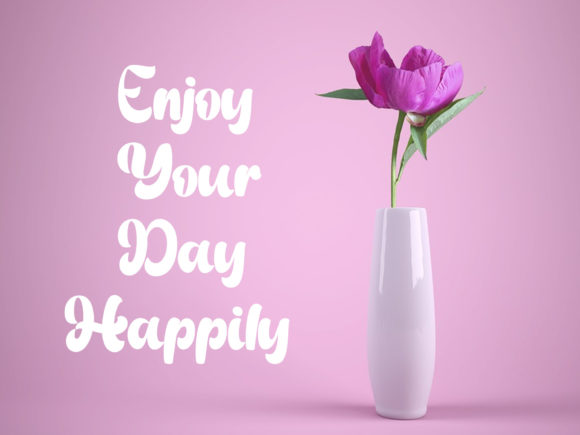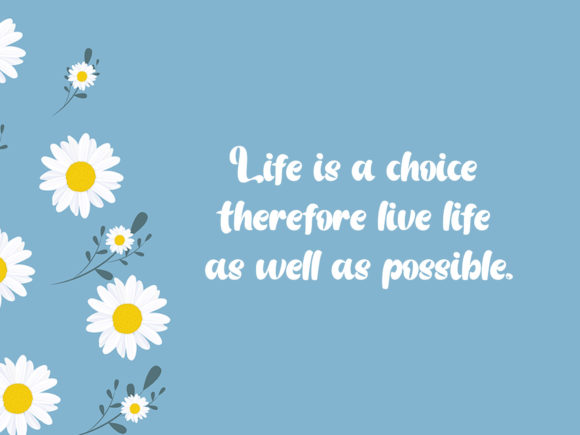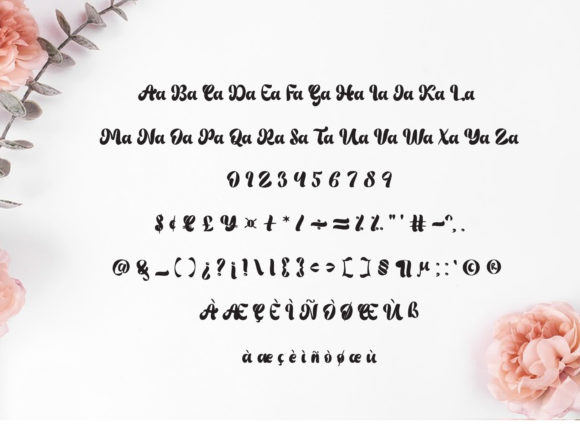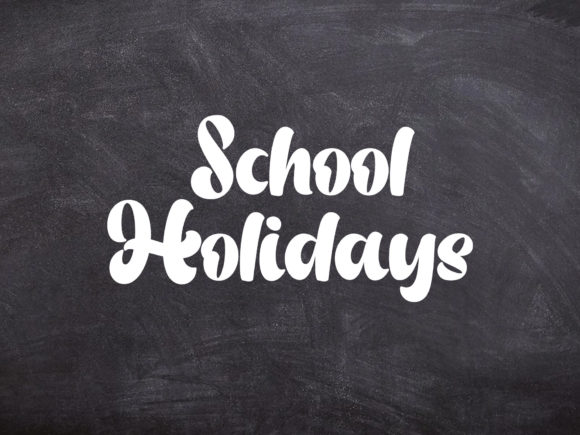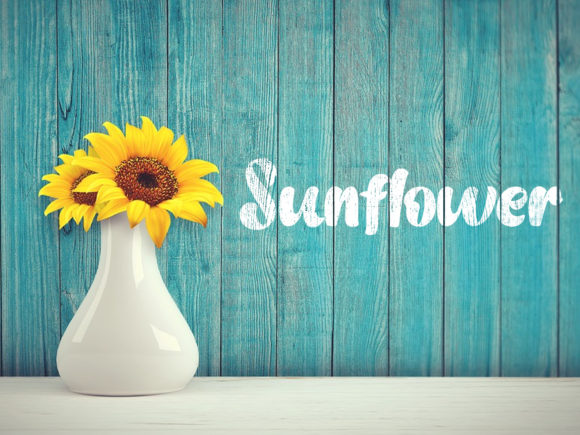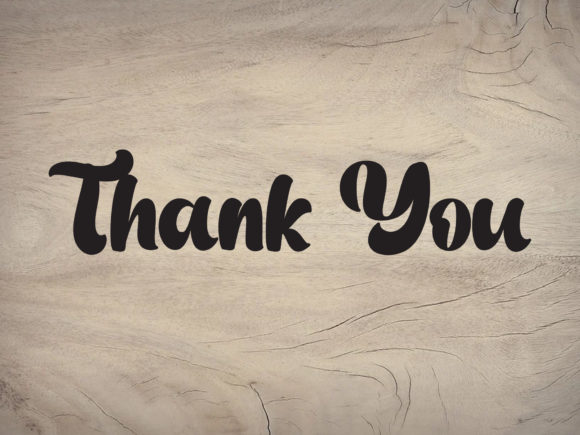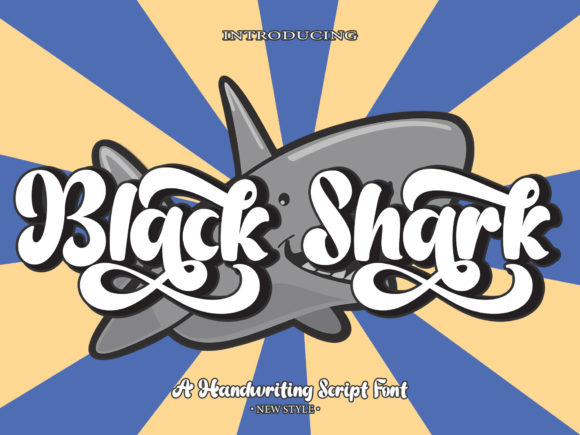
Introducing Black Shark Font: A Unique and Retro Handwritten Style
Are you tired of using the same old fonts for your designs and crafts? Look no further than the Black Shark Font, a one-of-a-kind handwritten font that’s sure to make your projects stand out. With its retro look and feel, this font is perfect for adding a touch of nostalgia and personality to your work.
What is Black Shark Font?
Black Shark Font is a carefully crafted handwritten font that’s designed to produce exceptional results. Its unique and retro style makes it ideal for a wide range of applications, from titles and invitations to letters and other informal products. Whether you’re a designer, crafter, or DIY enthusiast, this font is sure to become a favorite in your collection.
Key Features of Black Shark Font
- Unique and Retro Style: Black Shark Font boasts a distinctive and vintage look that’s sure to grab attention.
- Handwritten with Care: Each letter and character has been carefully crafted to ensure a personal and human touch.
- Versatile: Use Black Shark Font for titles, invitations, letters, and various other types of informal products.
- Easy to Read: Despite its retro style, Black Shark Font remains clear and easy to read, making it perfect for a wide range of applications.
Uses for Black Shark Font
Black Shark Font is incredibly versatile, making it suitable for a wide range of projects and applications. Here are some ideas to get you started:
- Titles and Headings: Use Black Shark Font to add a touch of personality to your titles and headings.
- Invitations: Create unique and eye-catching invitations for parties, events, and special occasions.
- Lettering: Add a personal touch to your letters and correspondence with Black Shark Font.
- DIY Crafts: Use Black Shark Font to add a retro touch to your DIY crafts, such as scrapbooking, card making, and more.
- Branding and Packaging: Use Black Shark Font to create distinctive and memorable branding and packaging for your products.
Tips for Using Black Shark Font
To get the most out of Black Shark Font, here are a few tips to keep in mind:
- Experiment with Sizes: Black Shark Font looks great in a variety of sizes, so don’t be afraid to experiment to find the perfect fit for your project.
- Pair with Other Fonts: Combine Black Shark Font with other fonts to create a unique and eye-catching look.
- Use for Emphasis: Use Black Shark Font to draw attention to specific words or phrases in your design.
Black Shark Font is a unique and retro-looking handwritten font that’s perfect for designers, crafters, and DIY enthusiasts. With its carefully crafted letters and characters, this font is sure to add a touch of personality and nostalgia to your projects. Whether you’re creating titles, invitations, letters, or other informal products, Black Shark Font is a versatile and easy-to-use choice that’s sure to become a favorite in your collection.